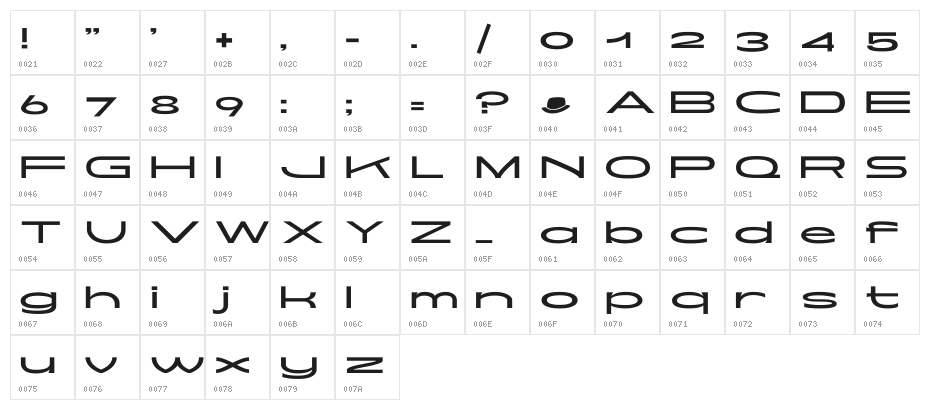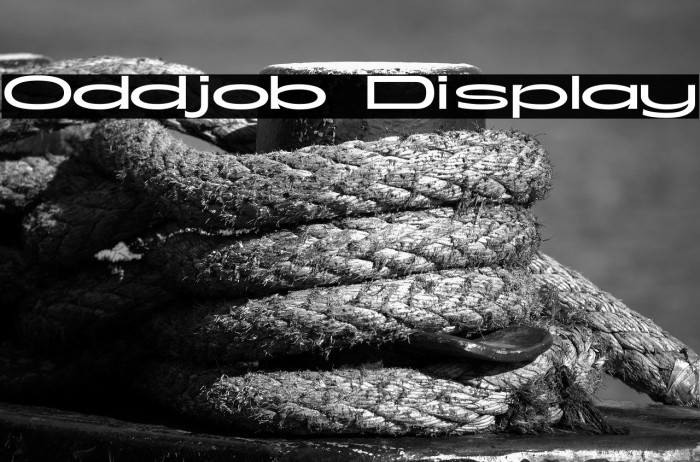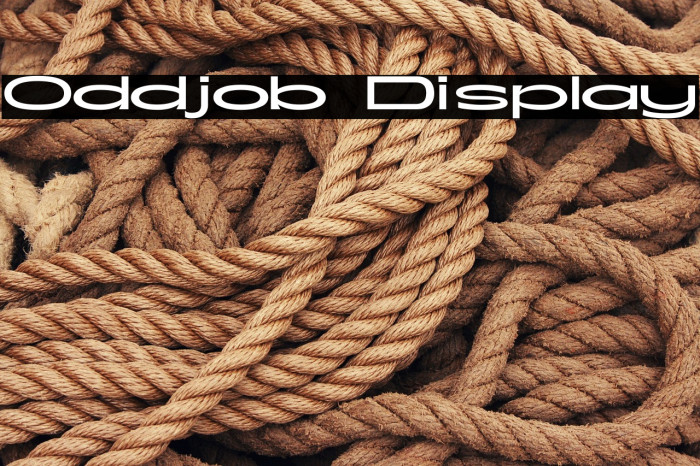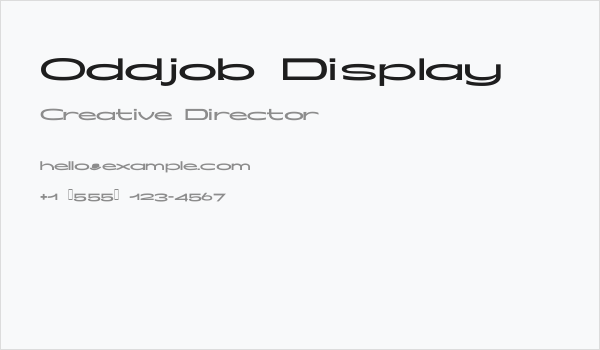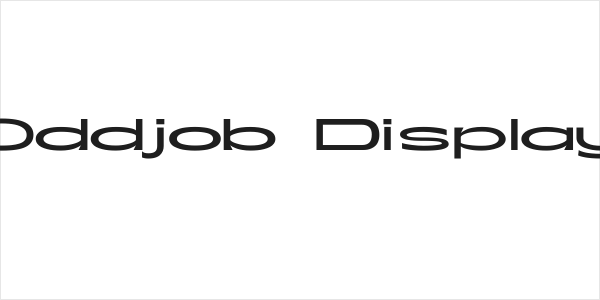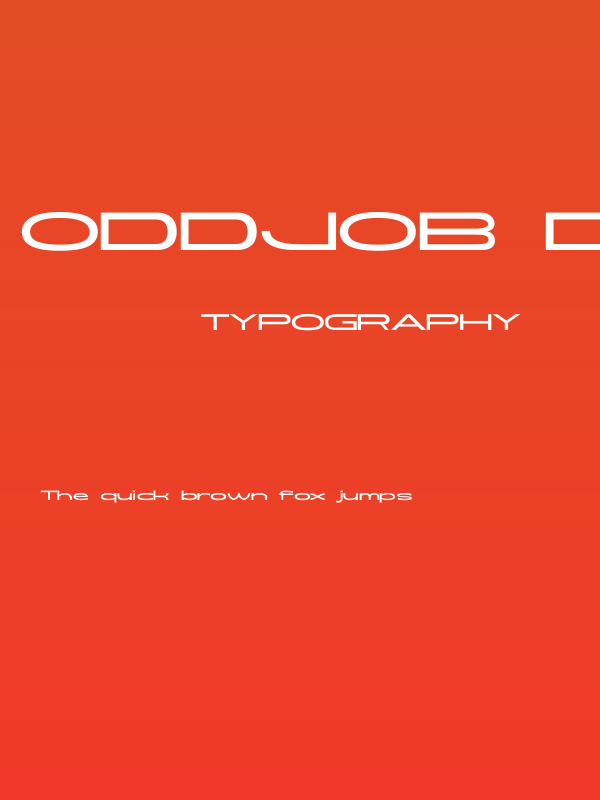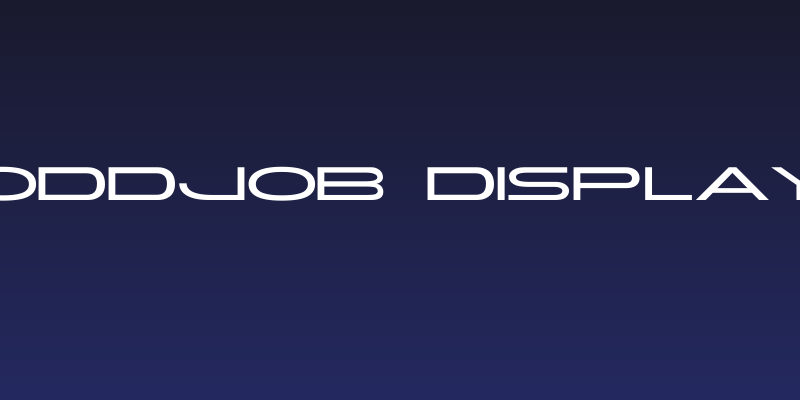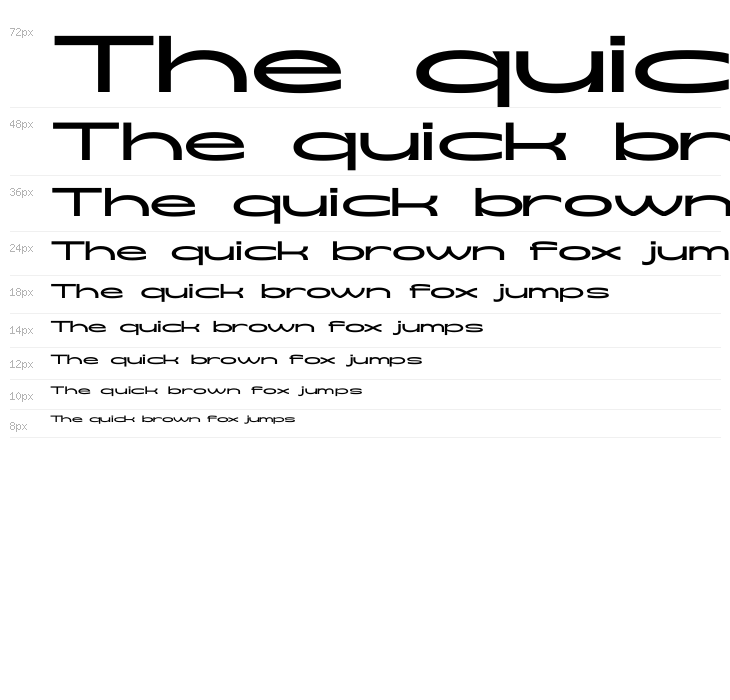
Oddjob Display Font
Oddjob Display Description
This font exhibits a sleek, futuristic design with a geometric flair. The characters are crafted with a modern aesthetic, featuring clean lines and a distinct angularity that gives each letter a unique, dynamic appearance. The uppercase letters are bold and commanding, while the lowercase letters maintain a consistent style, offering a harmonious balance. The numerals and special characters follow the same design principles, ensuring uniformity across all glyphs. The overall look is both stylish and versatile, making it suitable for a variety of creative applications.
| Proposed Projects | Ideal for sci-fi themed projects, modern branding, tech-related designs, and innovative advertising campaigns. |